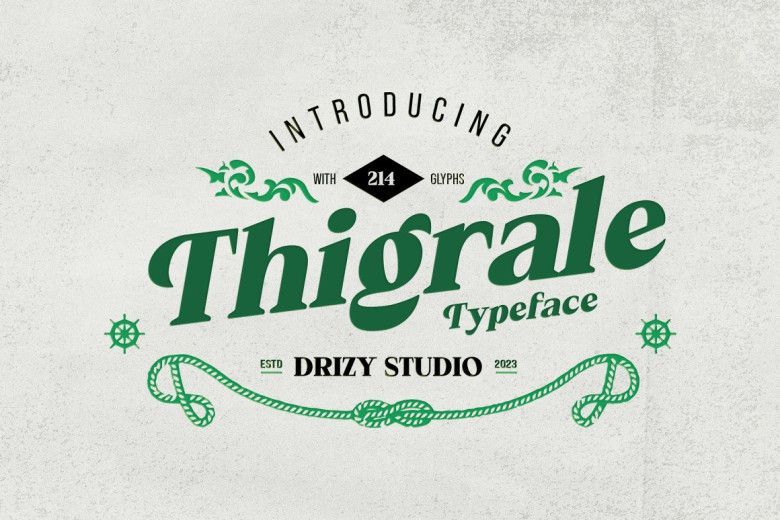
Thigrale Font
Thigrale is a timeless and elegant typeface from past eras of typography and print, exuding classic appeal while staying authentic evoking art of the past. Available as both uppercase and lowercase punctuation and numbers with multilingual support that alternates letters don’t hesitate to reach out if any questions about Thigrale arises – we hope that you like using it and have fun using it!
Thigrale Serif Font